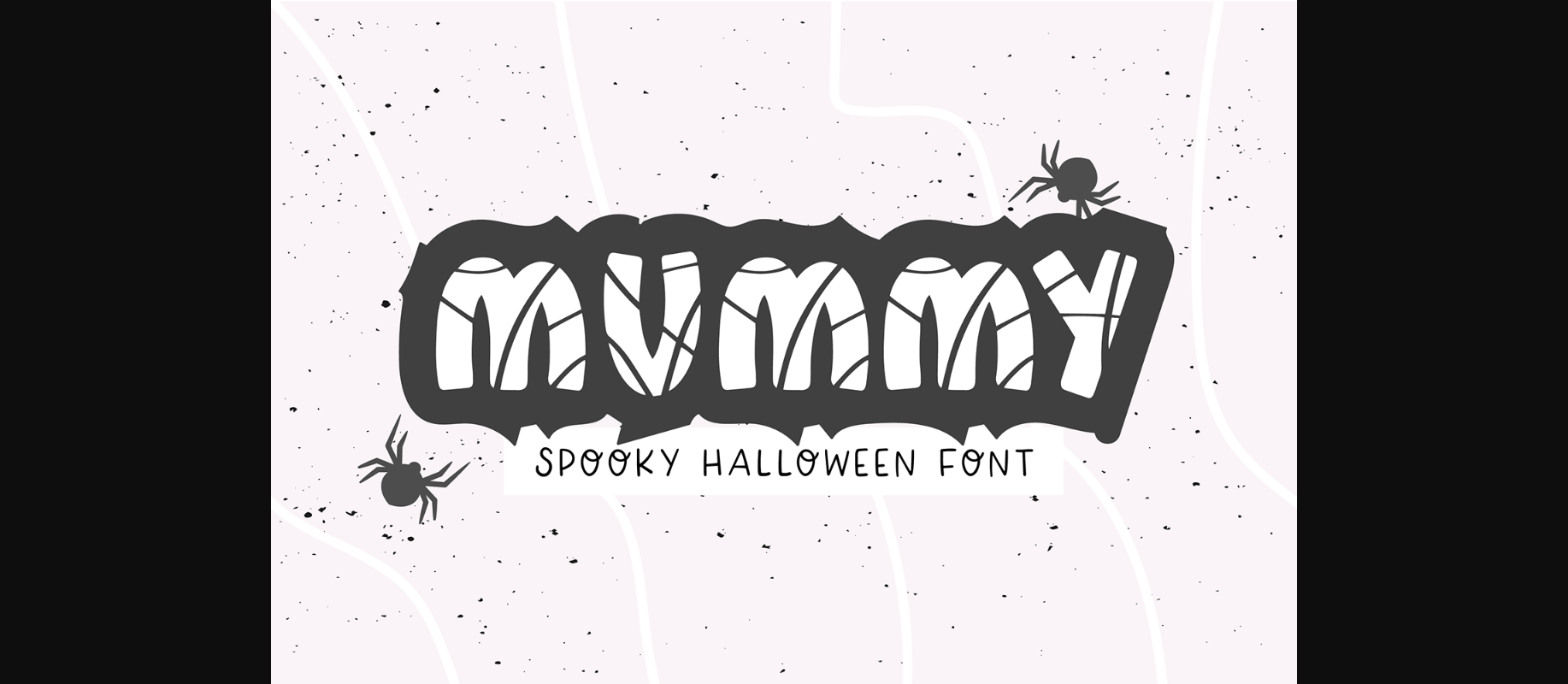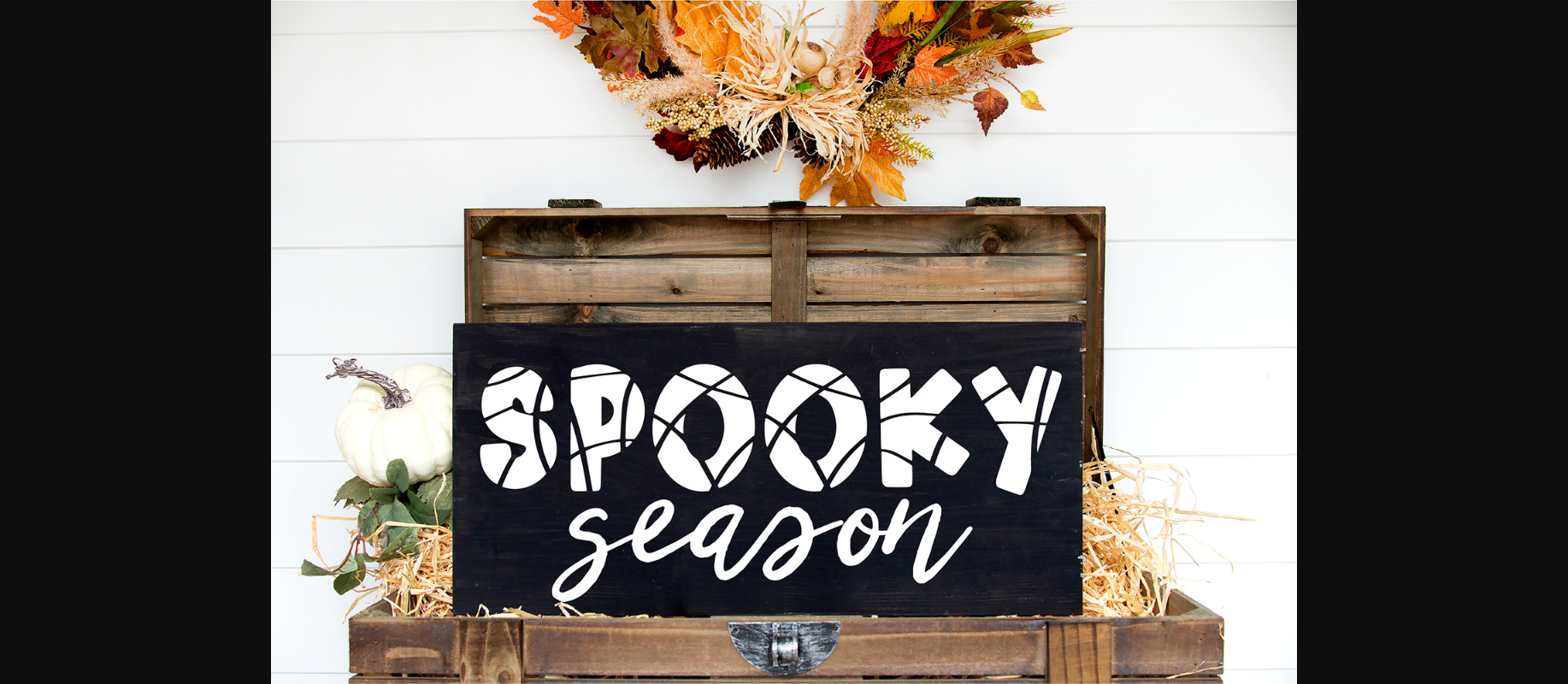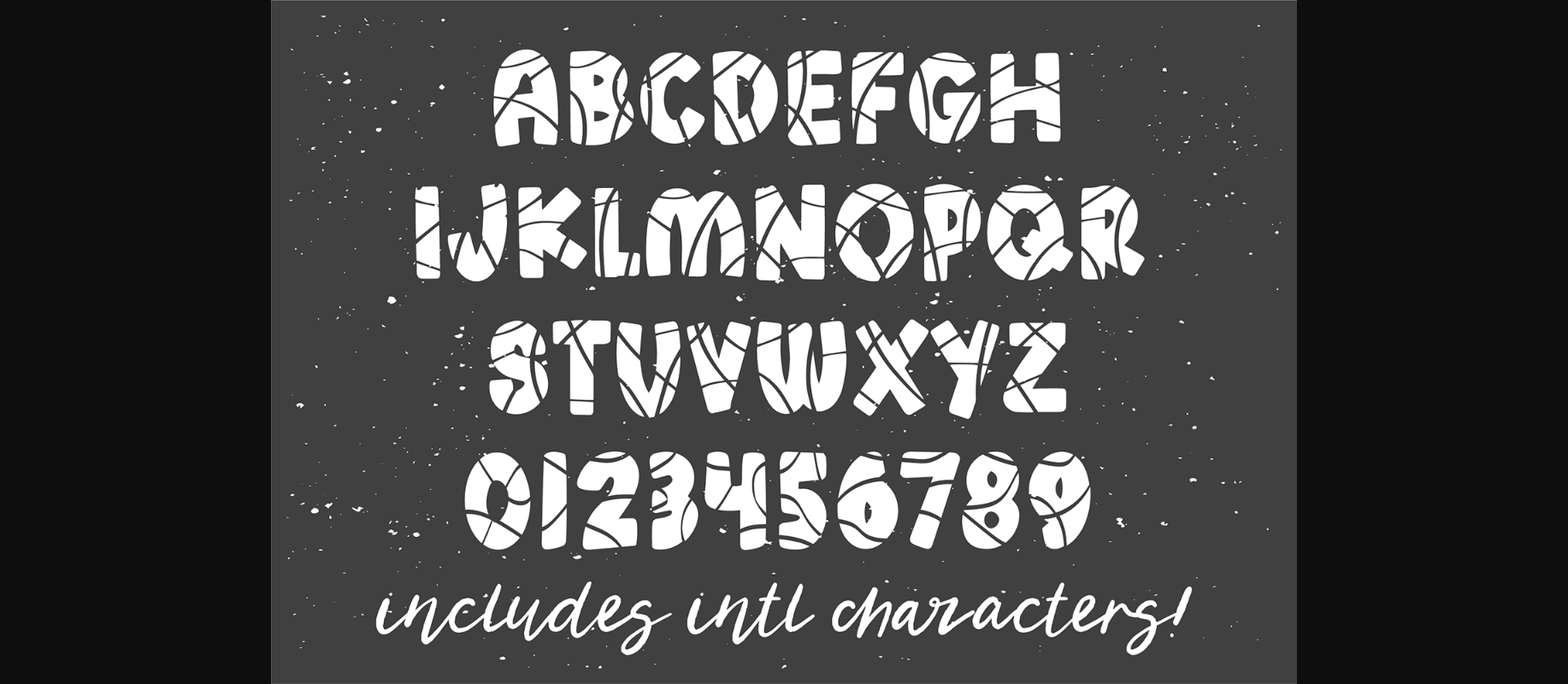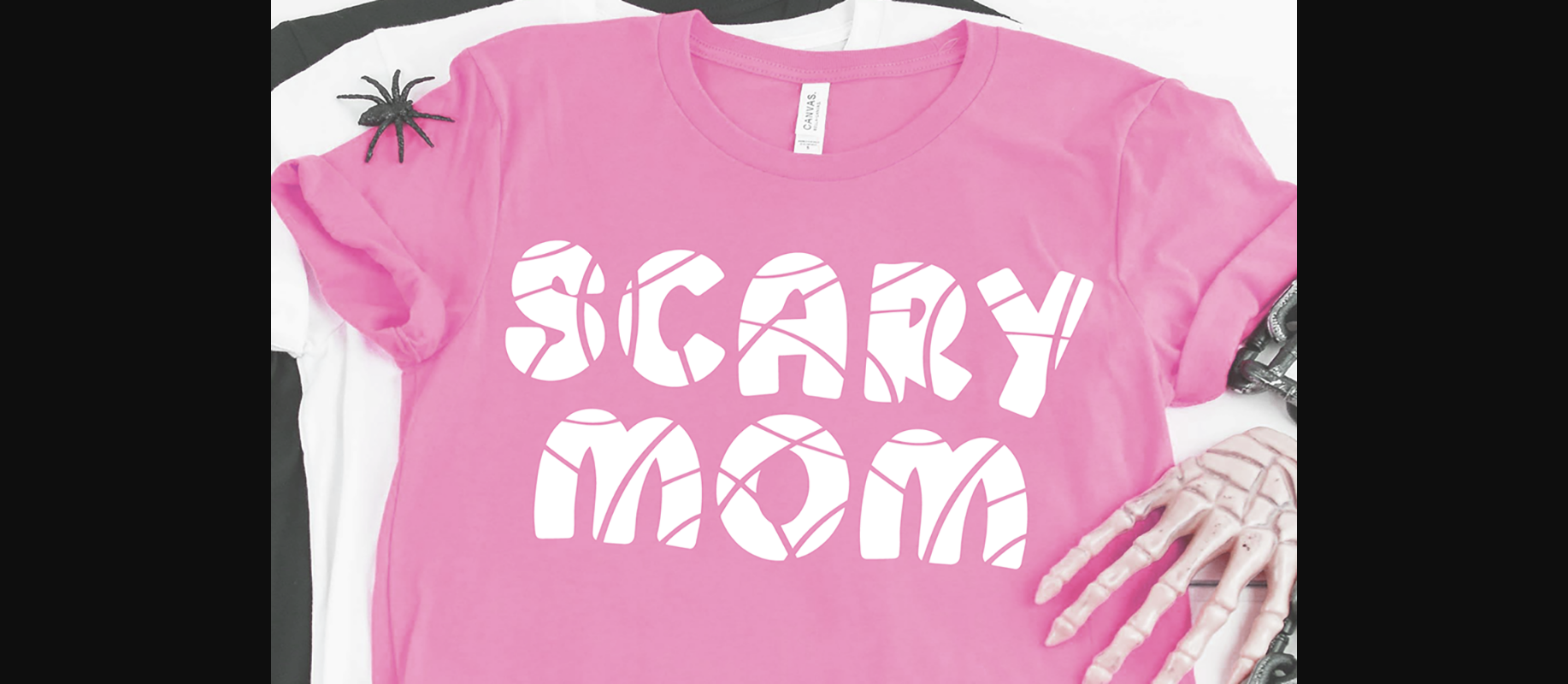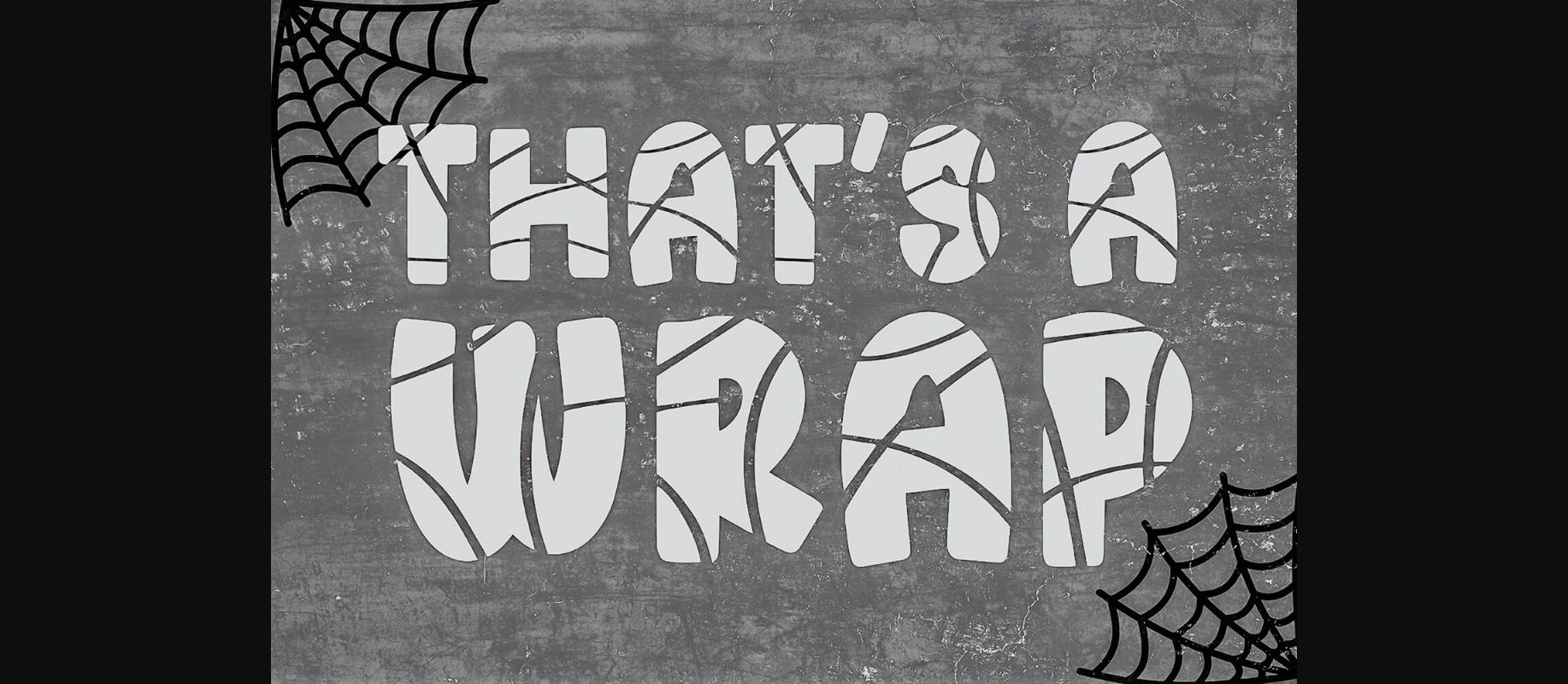
Mummy Font
About Mummy Font
“Mummy”
A Halloween mummy bandage Font
This is an installable font that will work great with your Halloween party invitations, web graphics, and other Halloween decor.